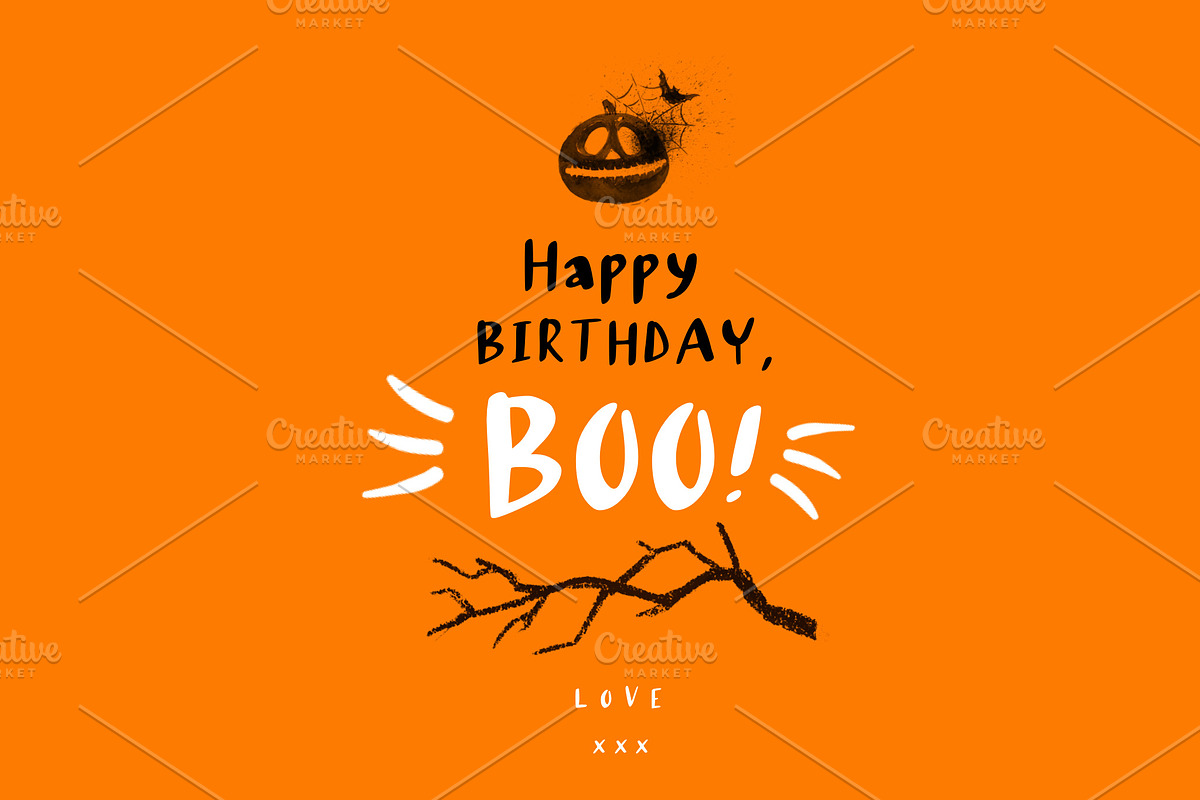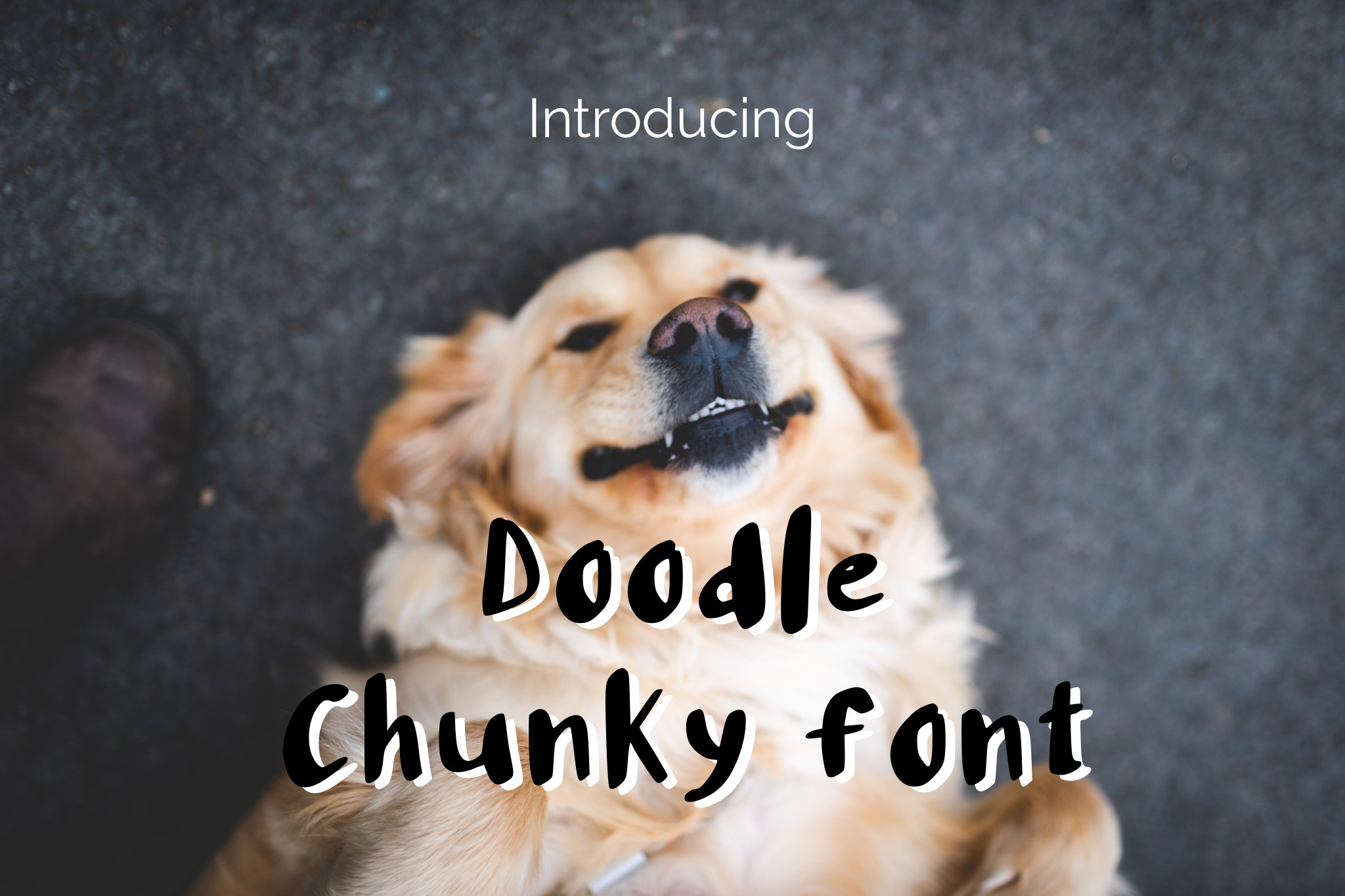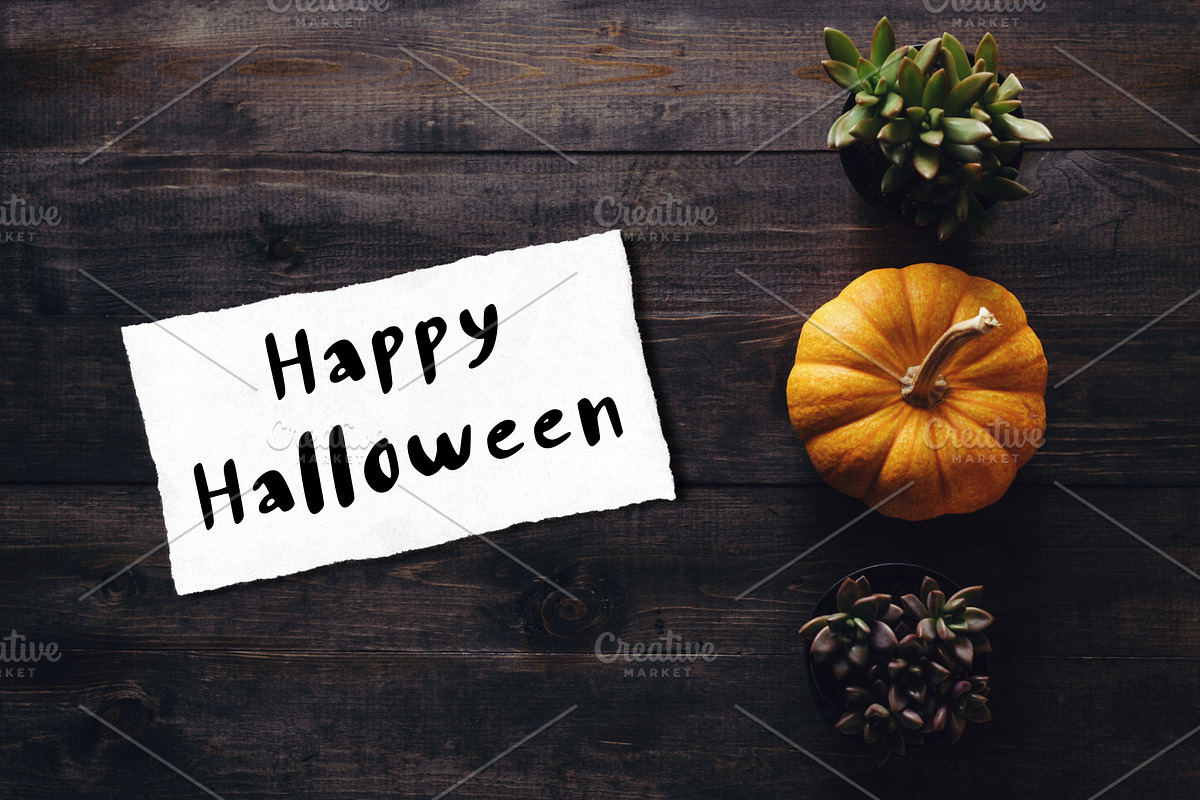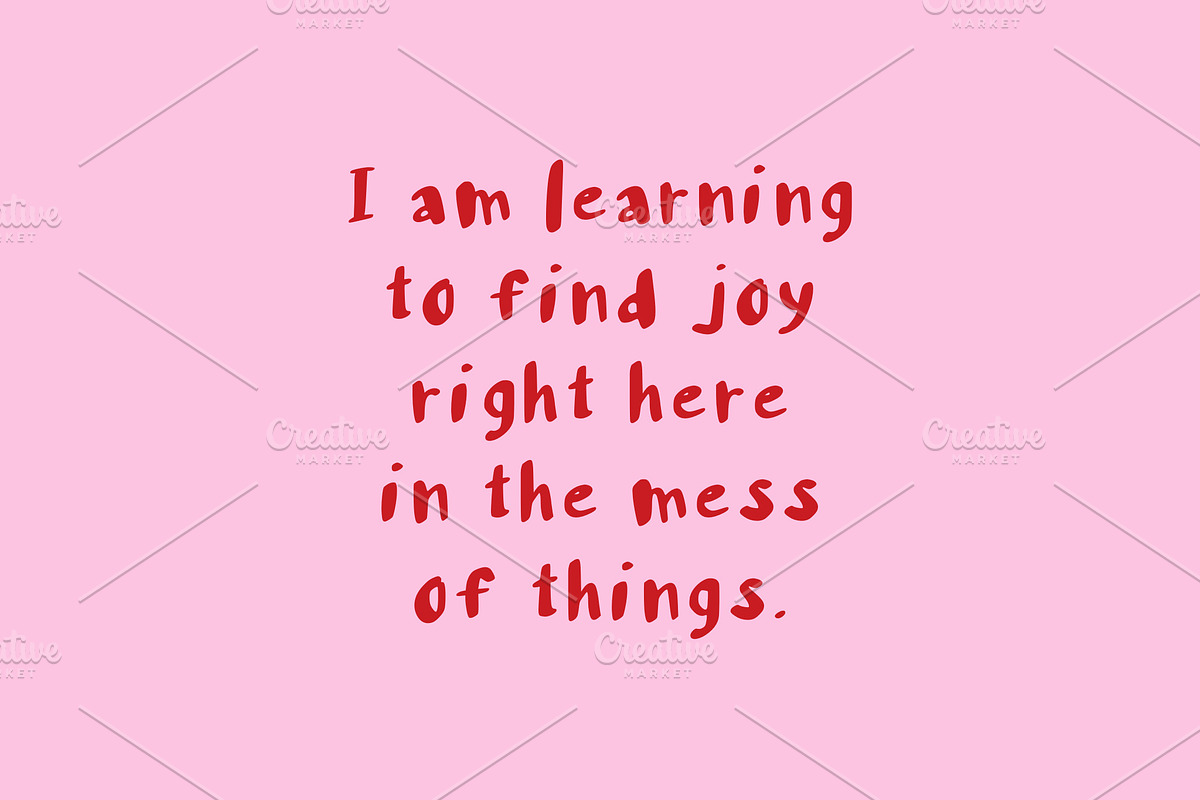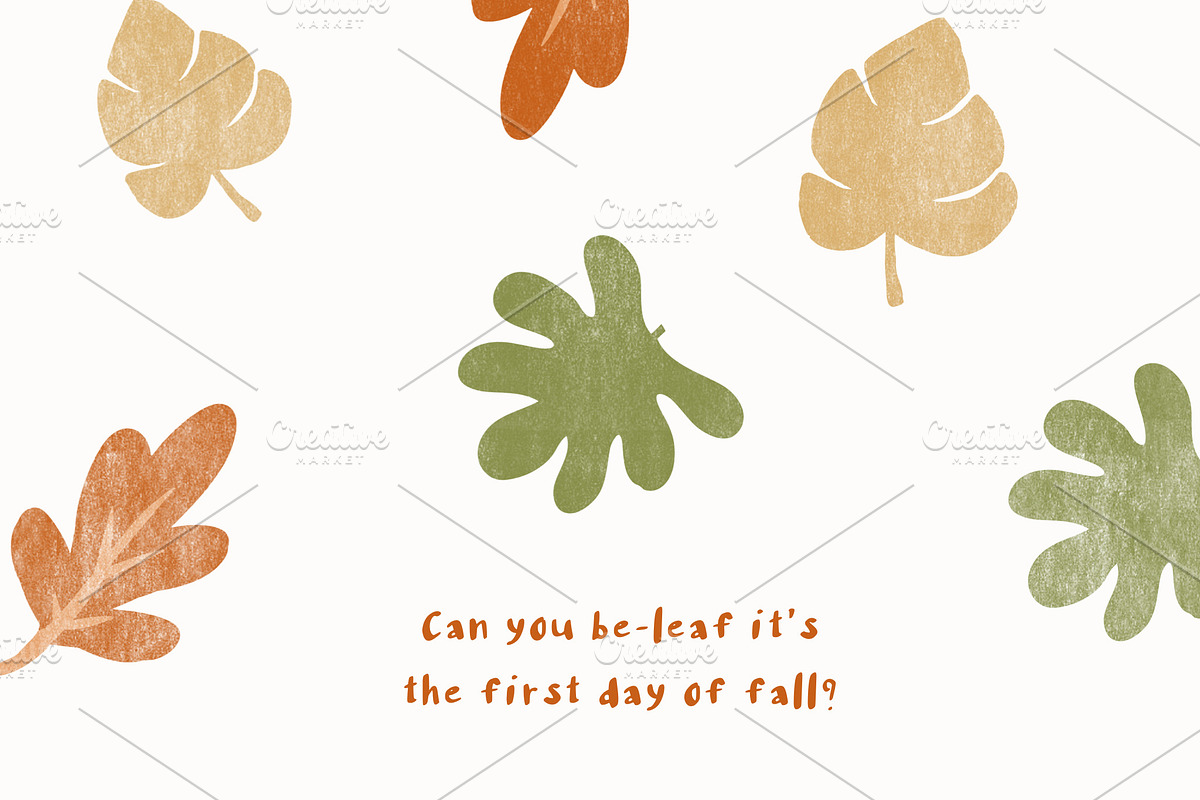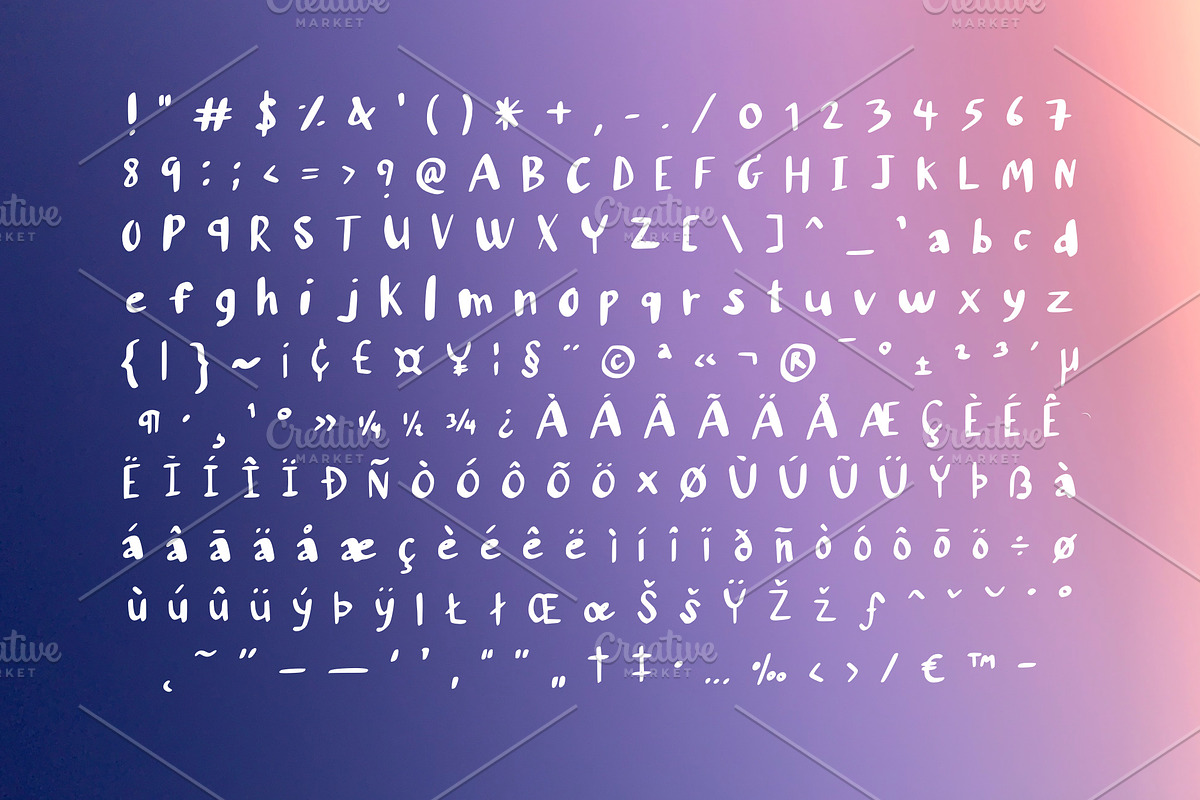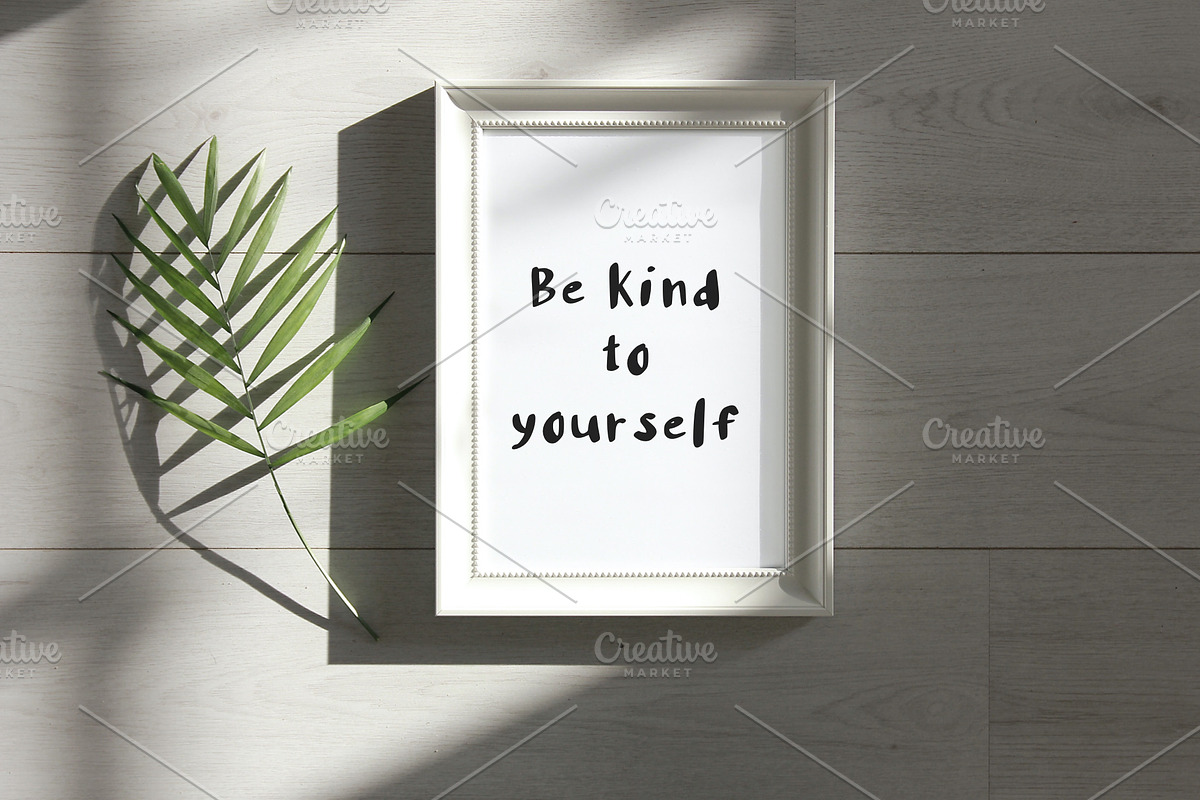
Doodle Chunky Font
Doodle chunky is a playful and friendly handwriting font. For personal use, website, web header , banner, blog, craft projects, postcard, poster, invitations, labels, social media, Template design and many more.